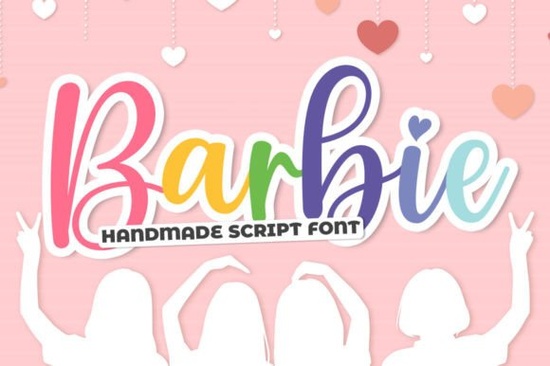
If you are looking for a versatile script typeface that brings immediate polish to your designs, Barbie Font delivers exactly that without feeling overdone. Crafted with smooth strokes and a refined calligraphic flow, it sits comfortably between elegant lettering and modern branding. Whether you work in print-on-demand, run a boutique shop, or simply enjoy crafting custom gifts, this file offers a reliable foundation for clean typography. Below is a straightforward breakdown of how it performs across different creative workflows.
What makes this script typeface stand out?
The design relies on consistent stroke weight and subtle flourishes that read well at both large display sizes and smaller body text dimensions. Unlike overly decorative alternatives, the character set stays restrained, which means your actual message does not get lost. You will notice careful attention to spacing and ligature placement, allowing letters to connect naturally when typed together. If you prefer a slightly softer edge for romantic or feminine projects, you might also explore Romance History Font for a vintage-leaning alternative, or check out BeHappy Font when you need something brighter and more casual for social media graphics. Exploring the curated script fonts collection further helps you compare line weights and find compatible pairings.
Where can you realistically apply it?
This typeface adapts quickly to several high-demand niches. Print-on-demand creators often pair it with minimalist backgrounds for mugs, tote bags, and wall art because the curves balance well with negative space. Small business owners frequently use it for product packaging, where clean legibility matters alongside brand identity. Wedding planners rely on similar calligraphic styles for invitations and seating charts, while independent authors find it useful for book covers and promotional posters. For those who like mixing styles, Bluebird Melody Font offers a lighter counterpart that works nicely side by side, and Antique Vintage Font provides a textured option for retro-themed campaigns.
How do you keep the layout from feeling cluttered?
Calligraphic letters carry visual weight, so restraint usually wins. Start by setting the main headline or signature in a larger point size, then leave generous breathing room around the edges. You can soften the overall composition by placing the script over a muted gradient, a soft paper texture, or a neutral background instead of high-contrast patterns. When adding supporting details like dates, names, or pricing, switch to a clean sans-serif or a simple serif. Keep all primary text on the same baseline unless you are intentionally designing a layered typographic poster. Testing your mockup at thumbnail size helps reveal spacing issues before you commit to a final design.